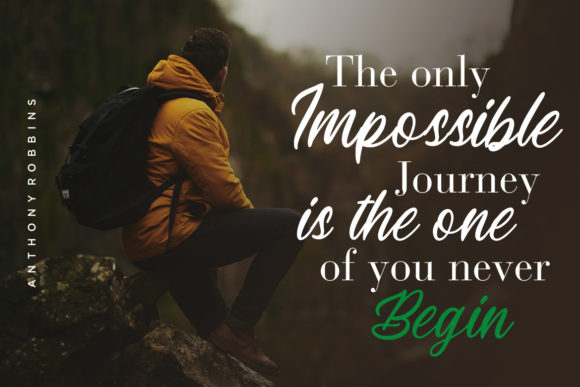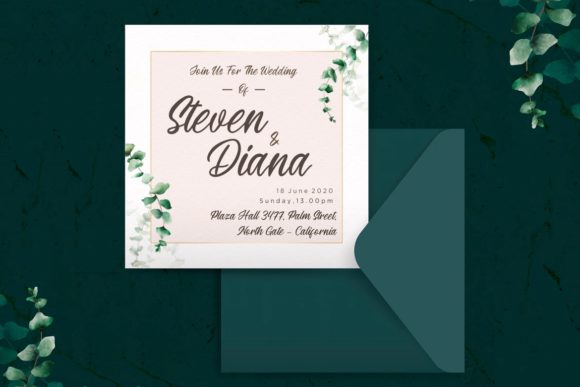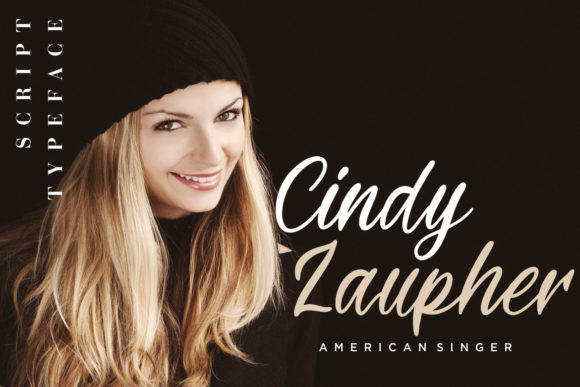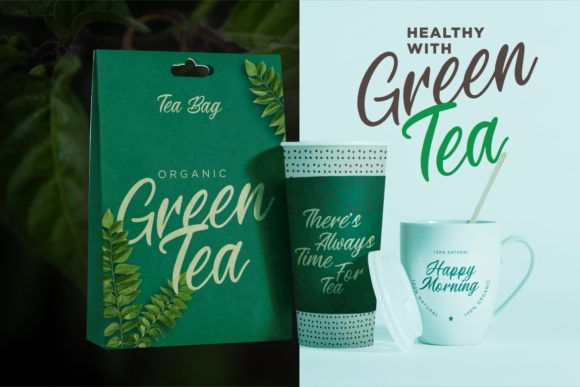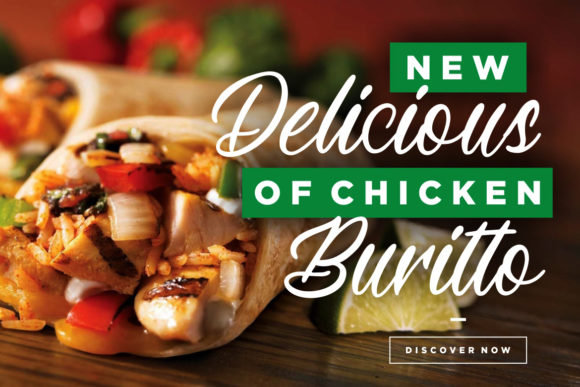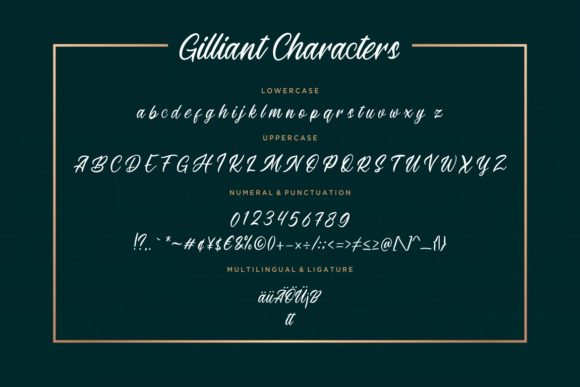
Gilliant Font: A Timeless Monoline Script with a Personal Touch
Are you a designer or crafter looking for a font that exudes elegance and sophistication? Look no further than Gilliant Font, a stunning monoline script that is sure to inspire your next creative project. With its timeless appeal and personal feel, Gilliant Font is the perfect choice for anyone seeking a unique and stylish typographic solution.
What is Gilliant Font?
Gilliant Font is a monoline script font that features a distinctive, hand-drawn aesthetic. Its monoline construction gives it a sleek and modern look, while its script style adds a touch of elegance and refinement. The font is designed to be highly legible, making it suitable for use in a wide range of applications, from digital media to print materials.
Key Features of Gilliant Font
- Monoline construction: Gilliant Font features a sleek and modern monoline construction that gives it a distinctive look.
- Script style: The font’s script style adds a touch of elegance and refinement, making it perfect for use in creative projects.
- High legibility: Gilliant Font is designed to be highly legible, making it suitable for use in a wide range of applications.
- Personal feel: The font has a personal feel that sets it apart from more traditional typographic solutions.
Timeless Appeal
One of the standout features of Gilliant Font is its timeless appeal. Unlike some fonts that can look dated or trendy, Gilliant Font has a classic, enduring quality that ensures it will remain stylish and relevant for years to come. This makes it an excellent choice for designers and crafters who want to create materials that will stand the test of time.
Uses for Gilliant Font
Gilliant Font is a versatile typographic solution that can be used in a wide range of applications, including:
- Digital media: Use Gilliant Font to add a touch of elegance to your website, social media graphics, or digital marketing materials.
- Print materials: Gilliant Font is perfect for use in print materials, such as brochures, flyers, and business cards.
- Crafting and DIY projects: Add a personal touch to your crafting and DIY projects with Gilliant Font, perfect for use in titles, headings, and other decorative elements.
Why Choose Gilliant Font?
So why choose Gilliant Font for your next creative project? Here are just a few reasons:
- Unique and stylish: Gilliant Font is a unique and stylish typographic solution that is sure to turn heads.
- Highly legible: The font is designed to be highly legible, making it suitable for use in a wide range of applications.
- Timeless appeal: Gilliant Font has a timeless appeal that ensures it will remain stylish and relevant for years to come.
In conclusion, Gilliant Font is a stunning monoline script font that is sure to inspire your next creative project. With its timeless appeal, personal feel, and high legibility, Gilliant Font is the perfect choice for designers and crafters looking for a unique and stylish typographic solution. Whether you’re working on a digital project, print materials, or crafting and DIY projects, Gilliant Font is an excellent choice.
Get Inspired by Gilliant Font
So why not get inspired by Gilliant Font today? Take a look at the font’s features, uses, and benefits, and see how it can elevate your next creative project. With its timeless appeal and personal feel, Gilliant Font is sure to be a valuable addition to your typographic toolkit.